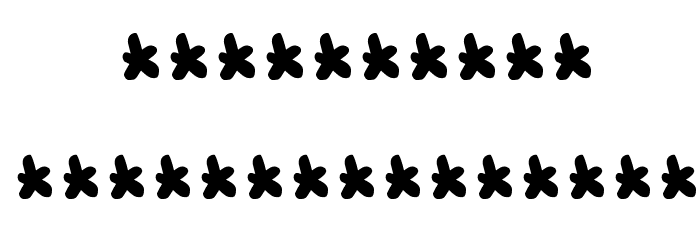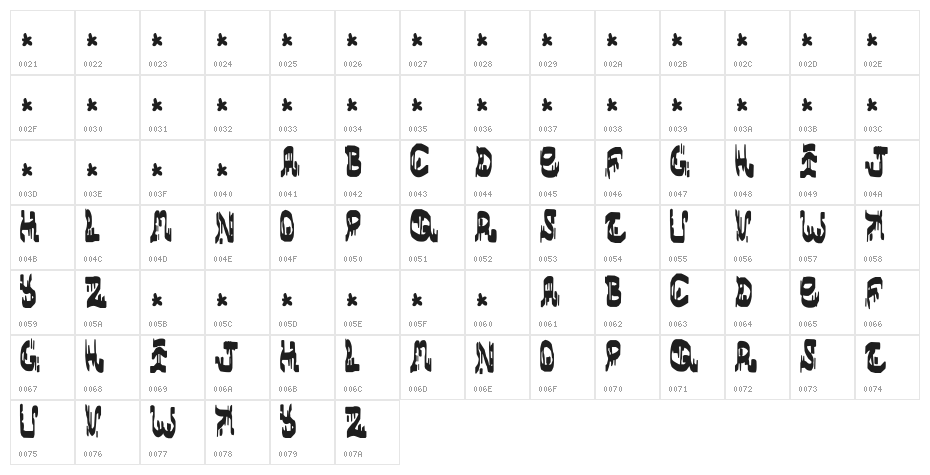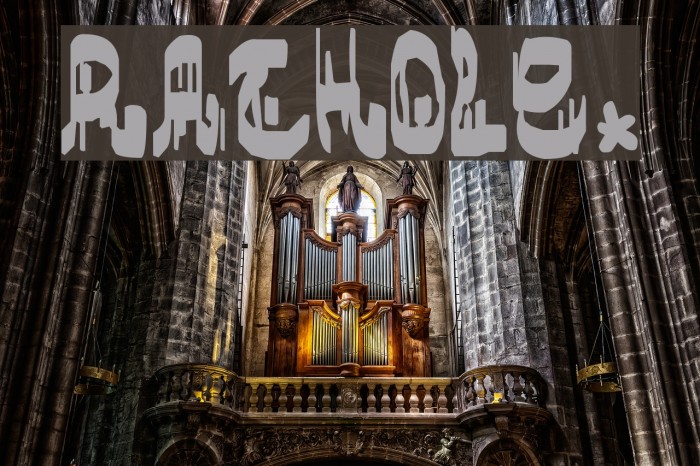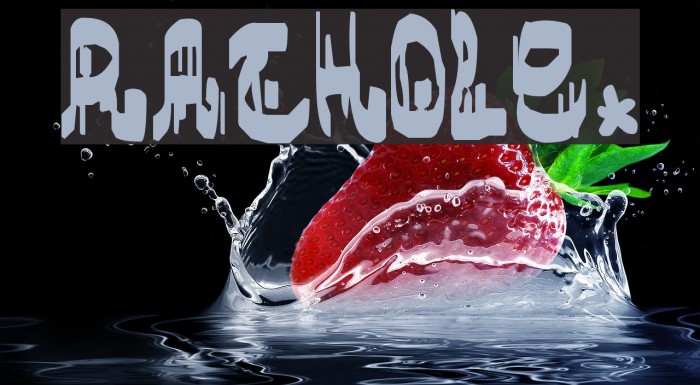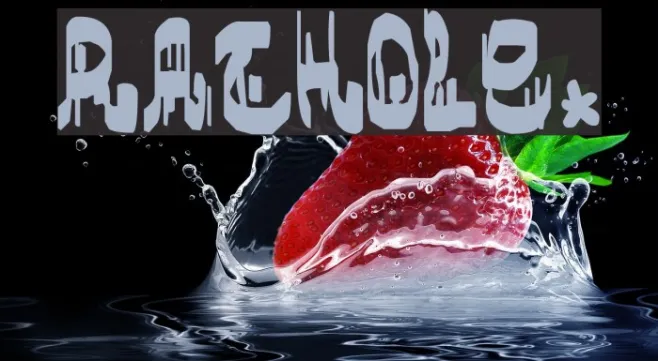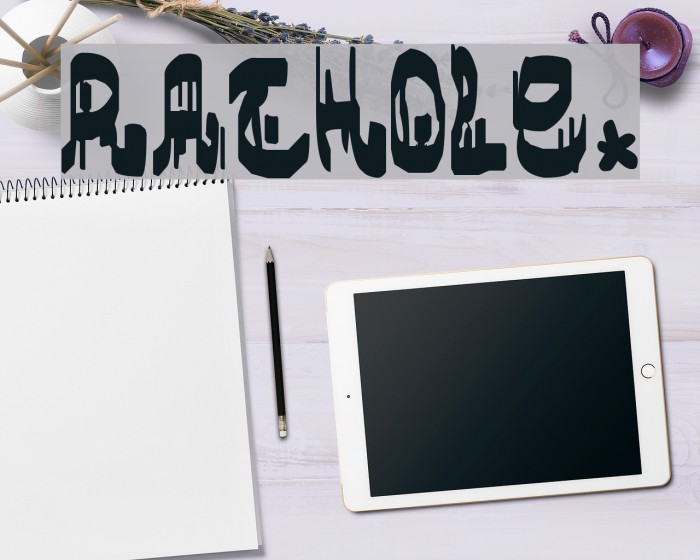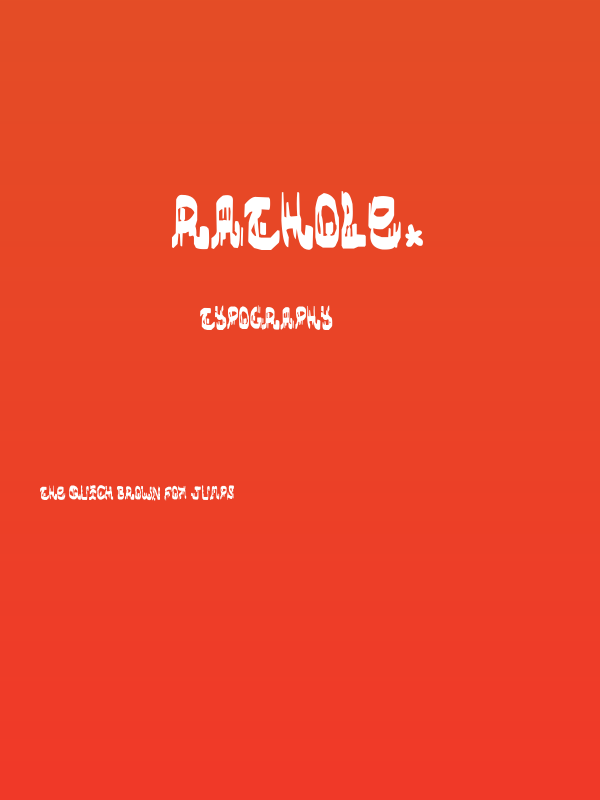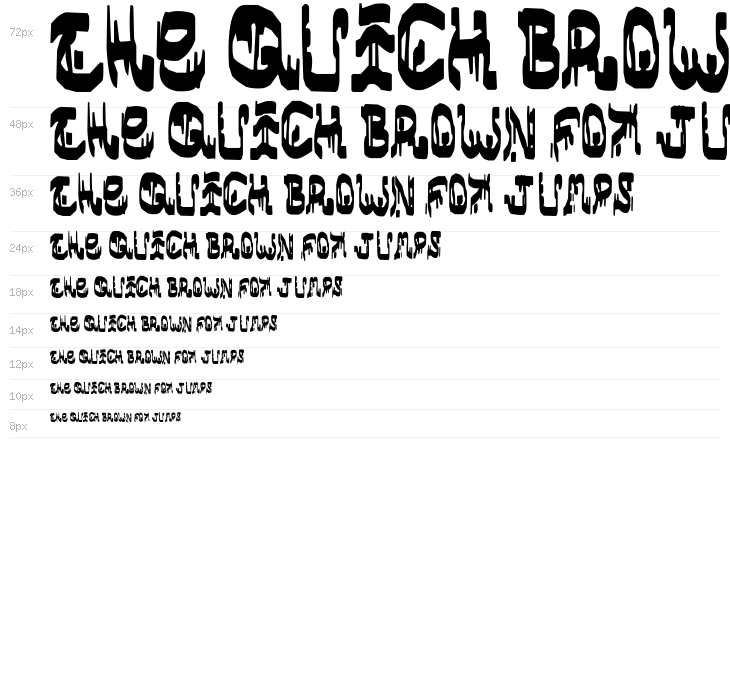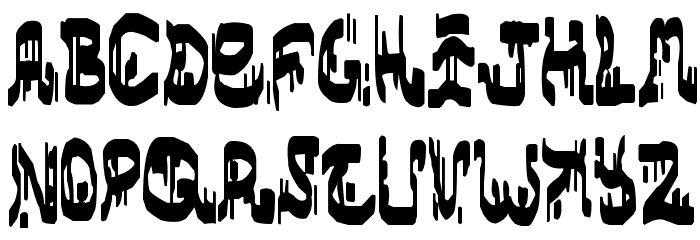
rathole. Font
rathole. Description
This font features a bold and dramatic style with a dripping effect that gives it a unique, edgy appearance. The uppercase letters are heavily stylized, with each character appearing as if it is melting or dripping, creating a sense of movement and fluidity. The font's thick strokes and irregular edges contribute to its distinctive look, making it stand out in any design. The absence of lowercase letters and numbers suggests a focus on decorative use rather than readability. The font's playful yet dark aesthetic makes it suitable for creative and unconventional projects.
| Use Case | Logos, Posters, Headlines |
| Proposed Projects | Ideal for Halloween-themed designs, horror movie posters, edgy branding, or any project requiring a dramatic and unconventional typeface. |